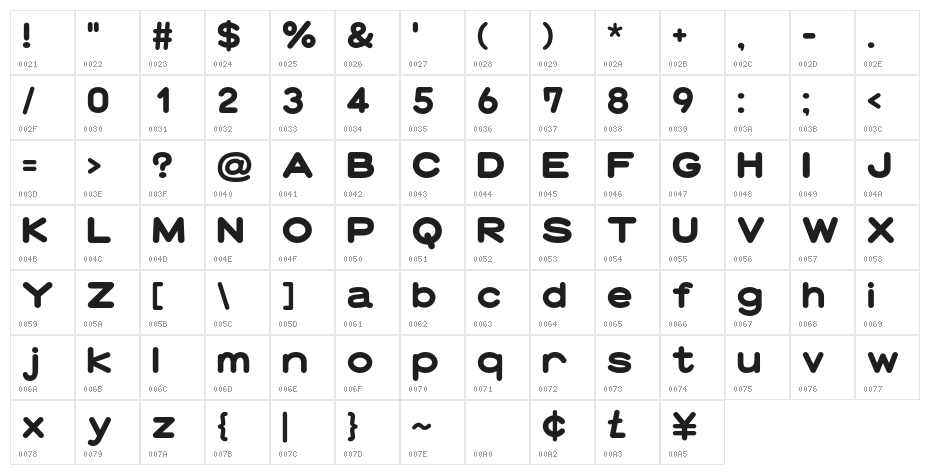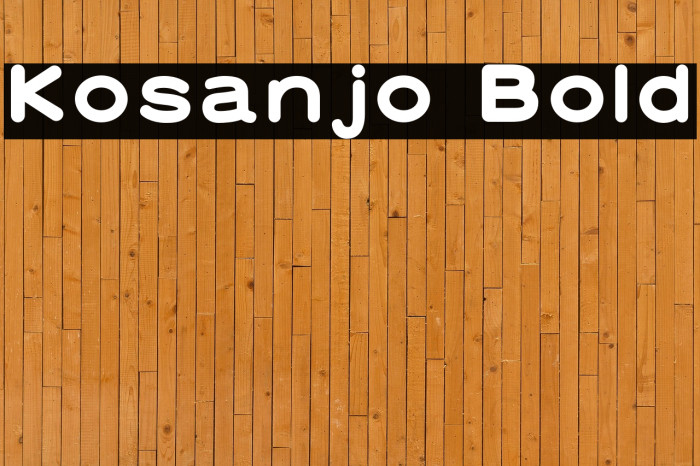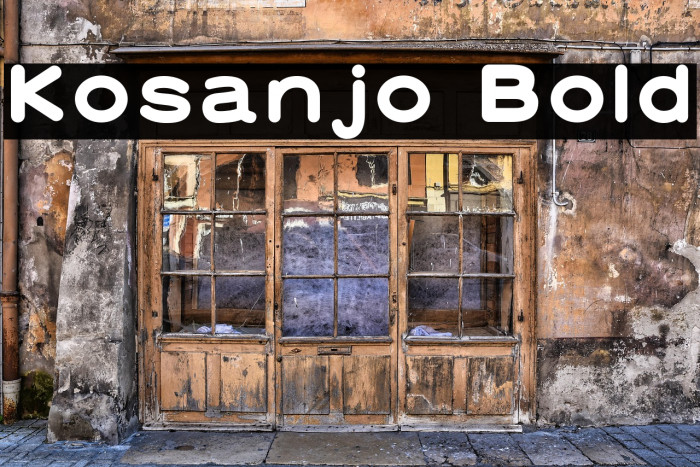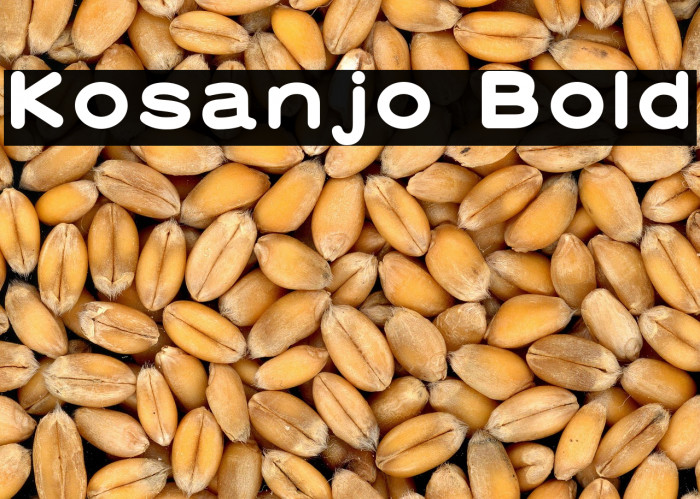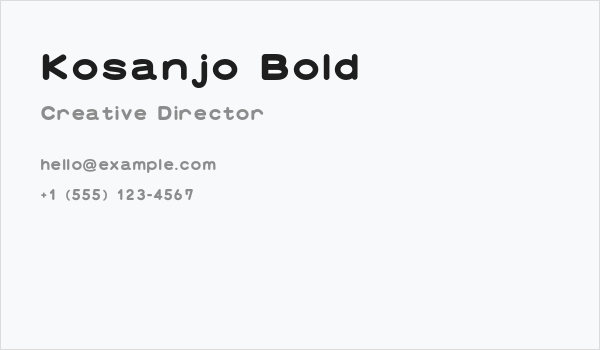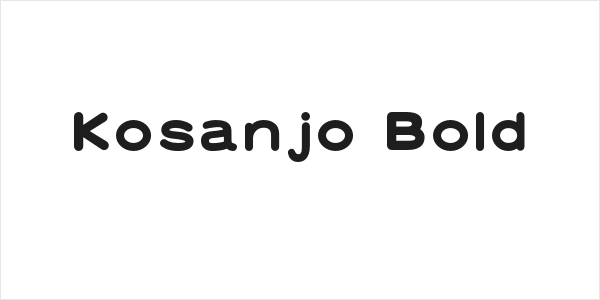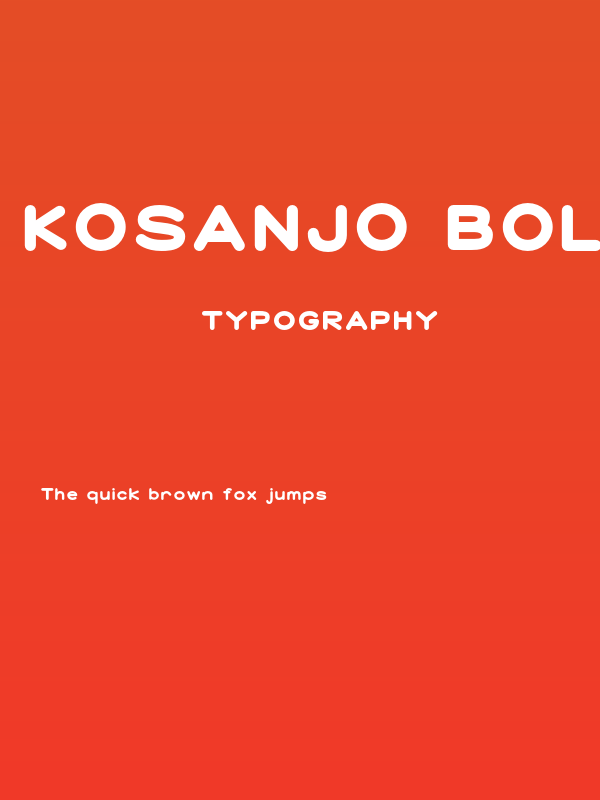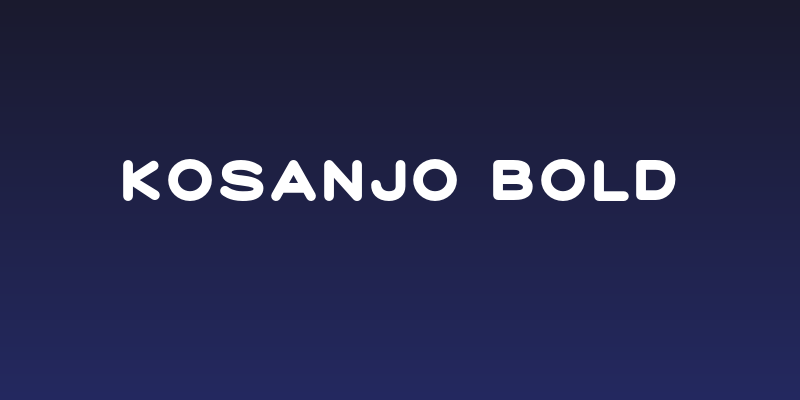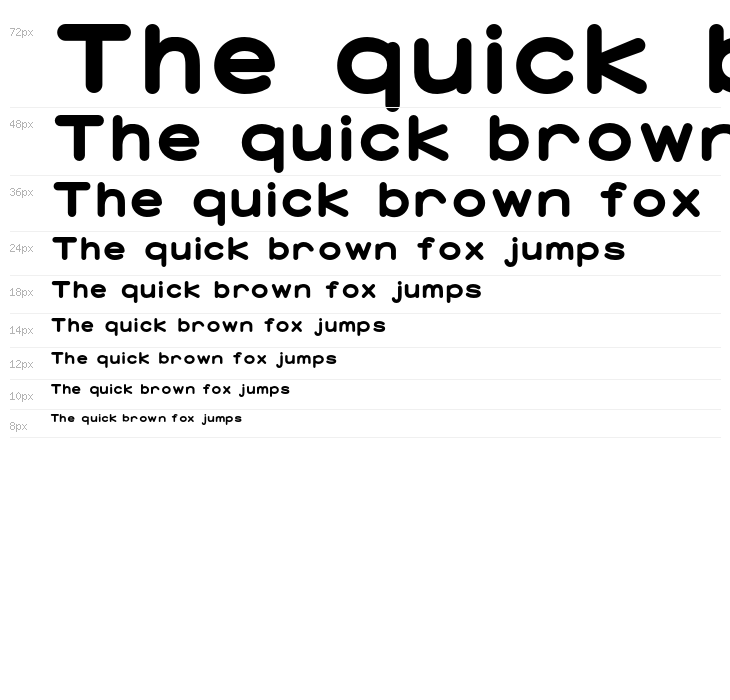
Kosanjo Bold Font
Kosanjo Bold Description
This font features a bold and rounded design, characterized by its smooth curves and uniform stroke width. The letters are evenly spaced, providing a clean and modern appearance. The uppercase and lowercase letters maintain a consistent style, with rounded edges that give a friendly and approachable feel. The numerals and special characters are designed to match the overall aesthetic, ensuring a cohesive look across all text elements. This font's simplicity and clarity make it highly readable, even at smaller sizes, while its boldness ensures it stands out in larger displays.
| Proposed Projects | Ideal for branding, advertising, headlines, and digital media where a modern and approachable look is desired. |